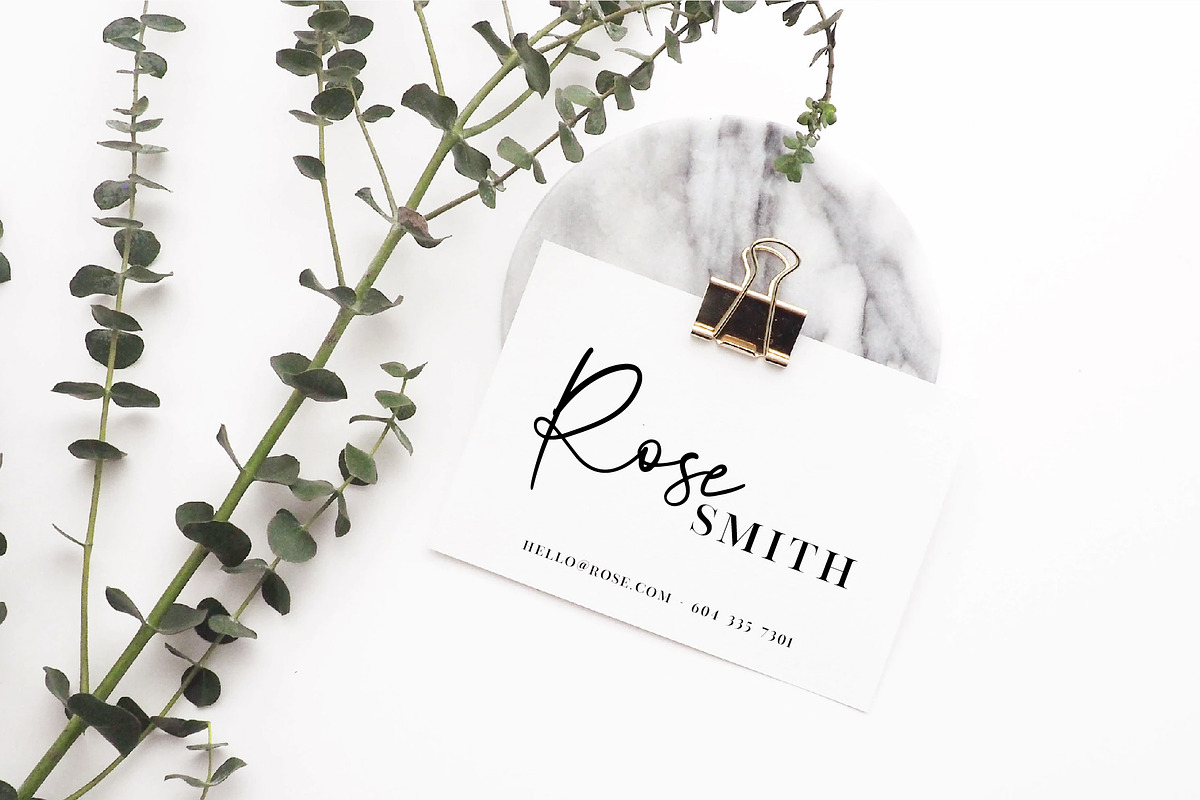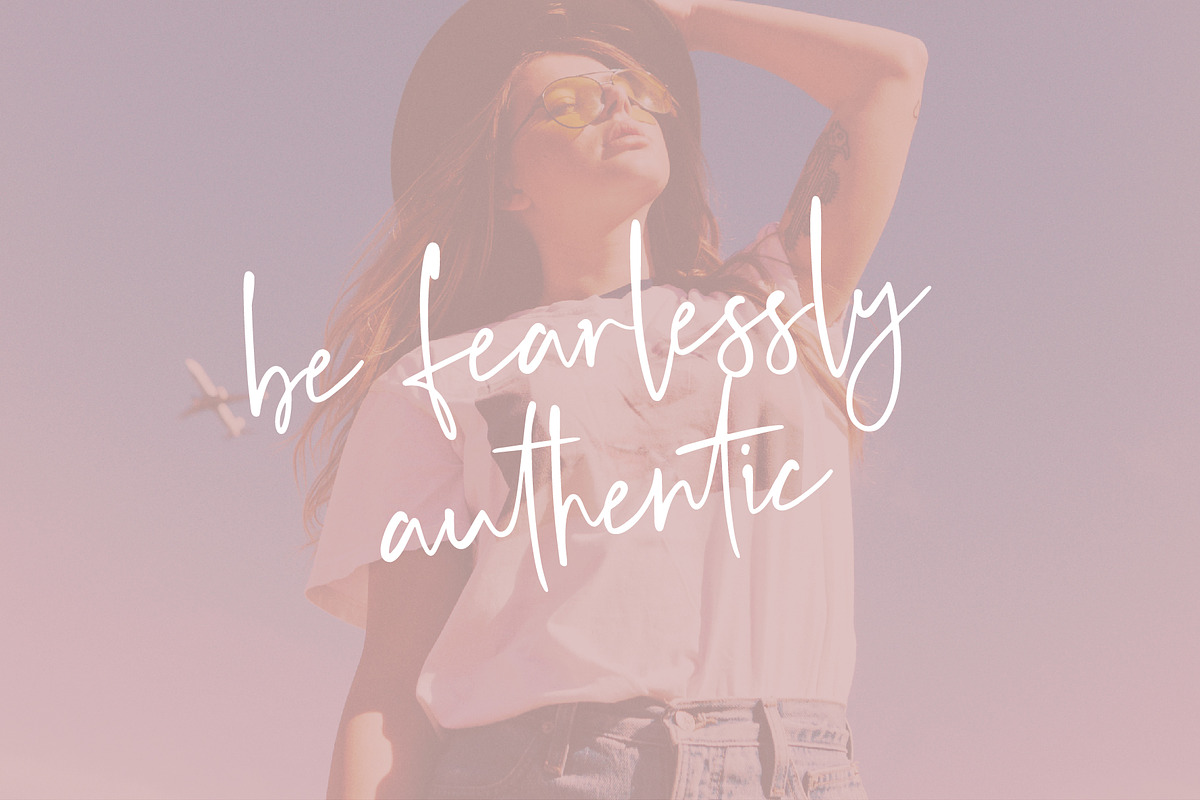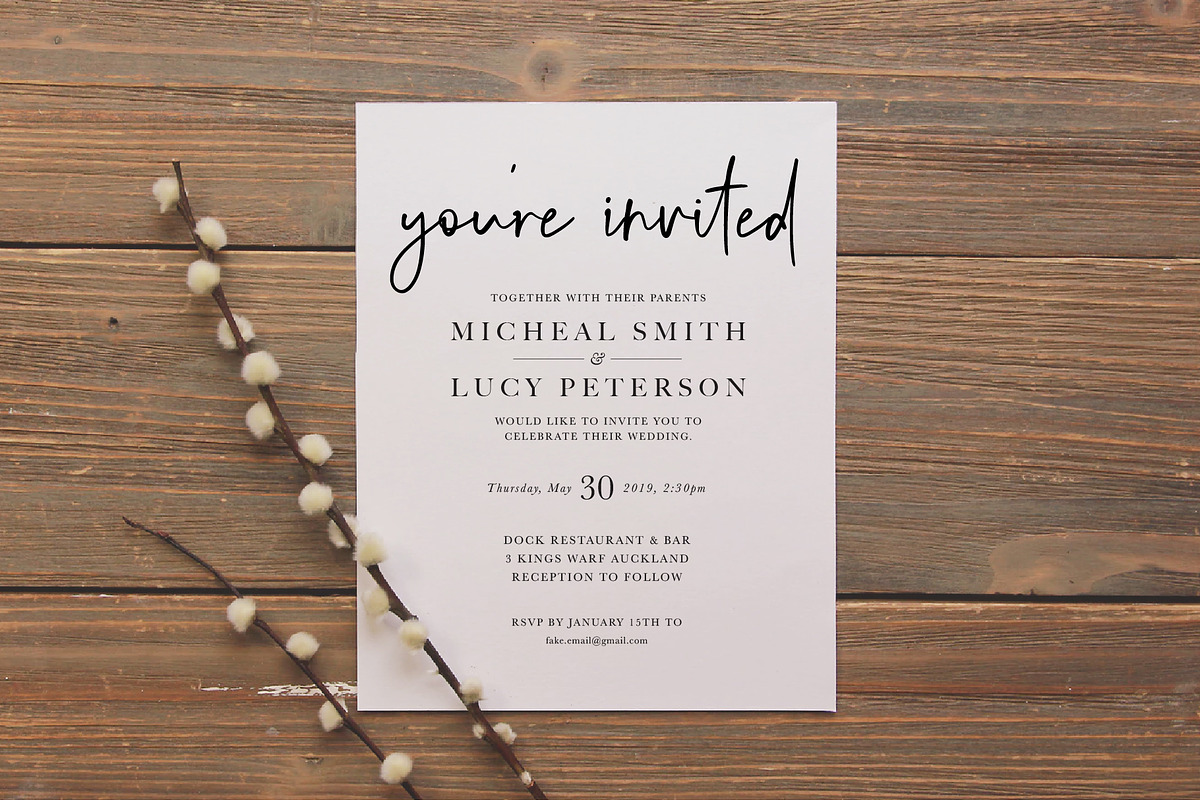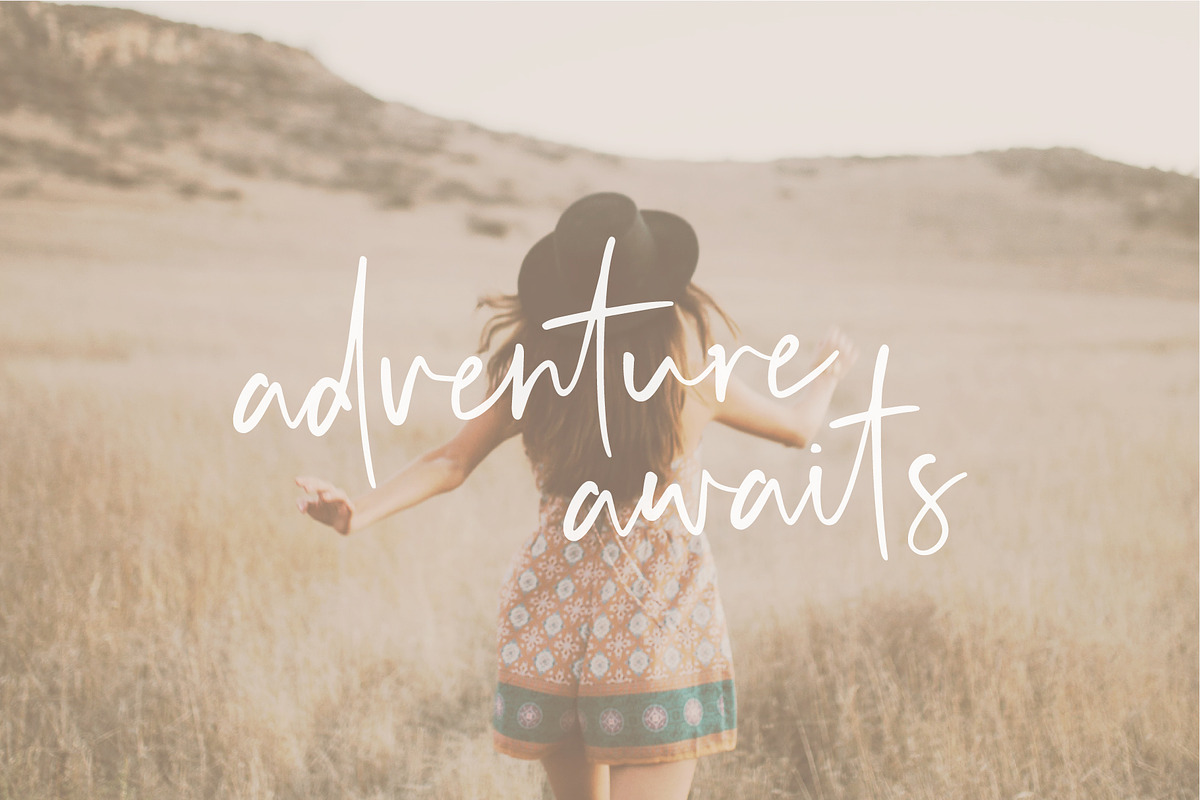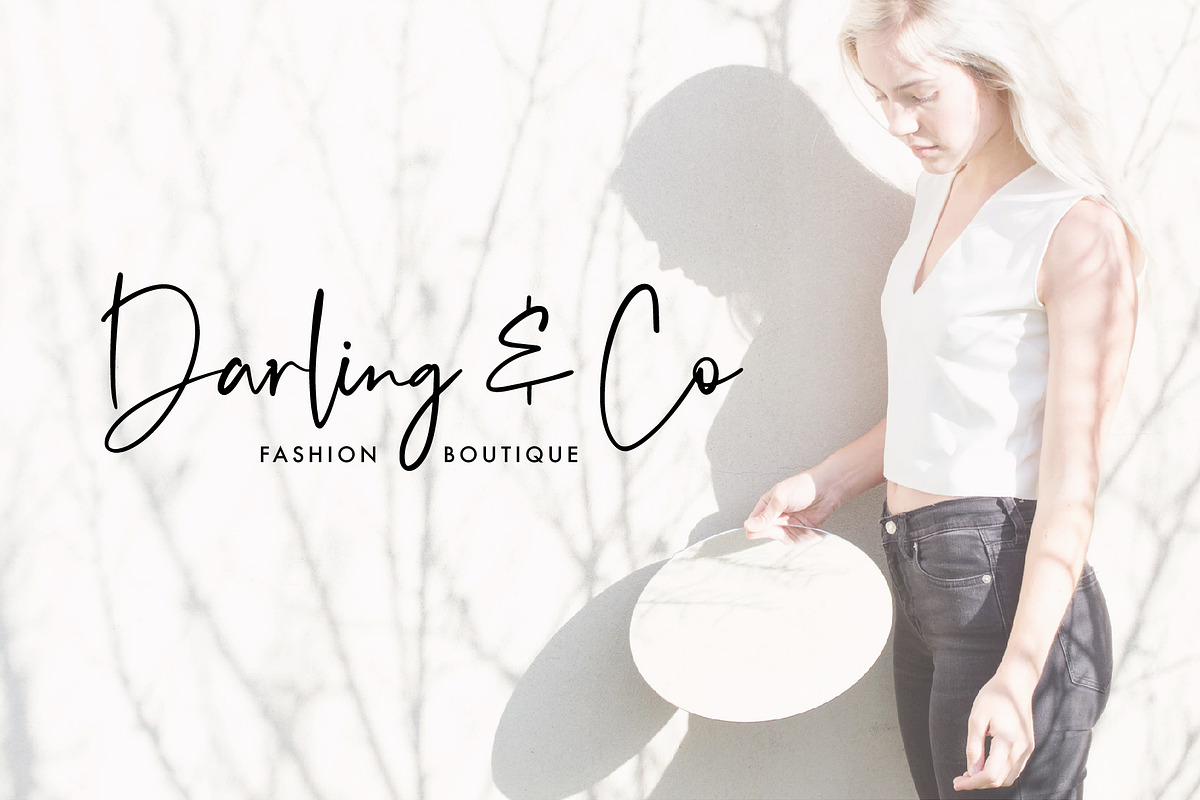
Audrey Font
Audrey is a feminine, but slightly edgy and fun handwritten script font. This font stands perfectly on its own for Logos and Quotes, or works great paired with an all caps serif or sans serif, as pictured above.